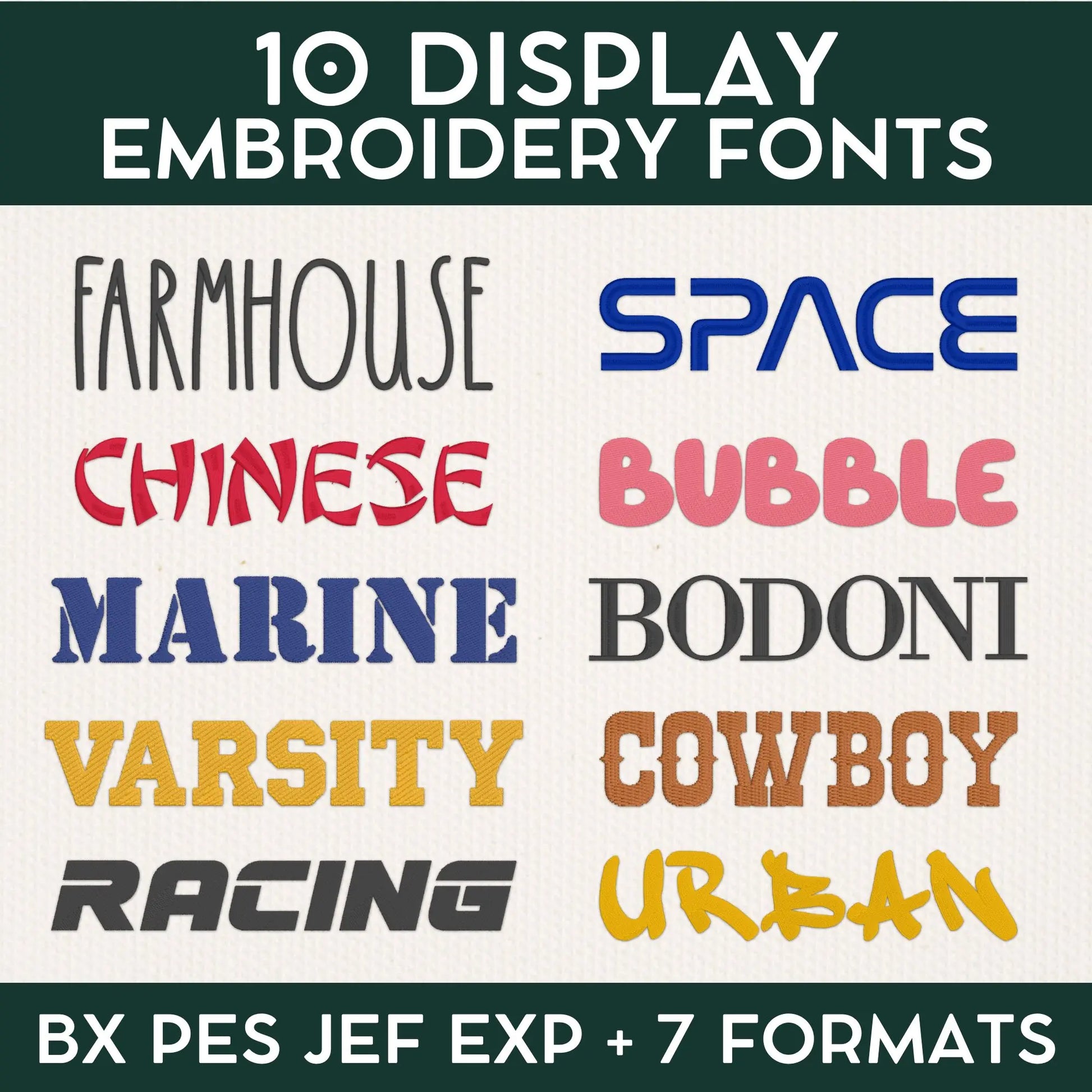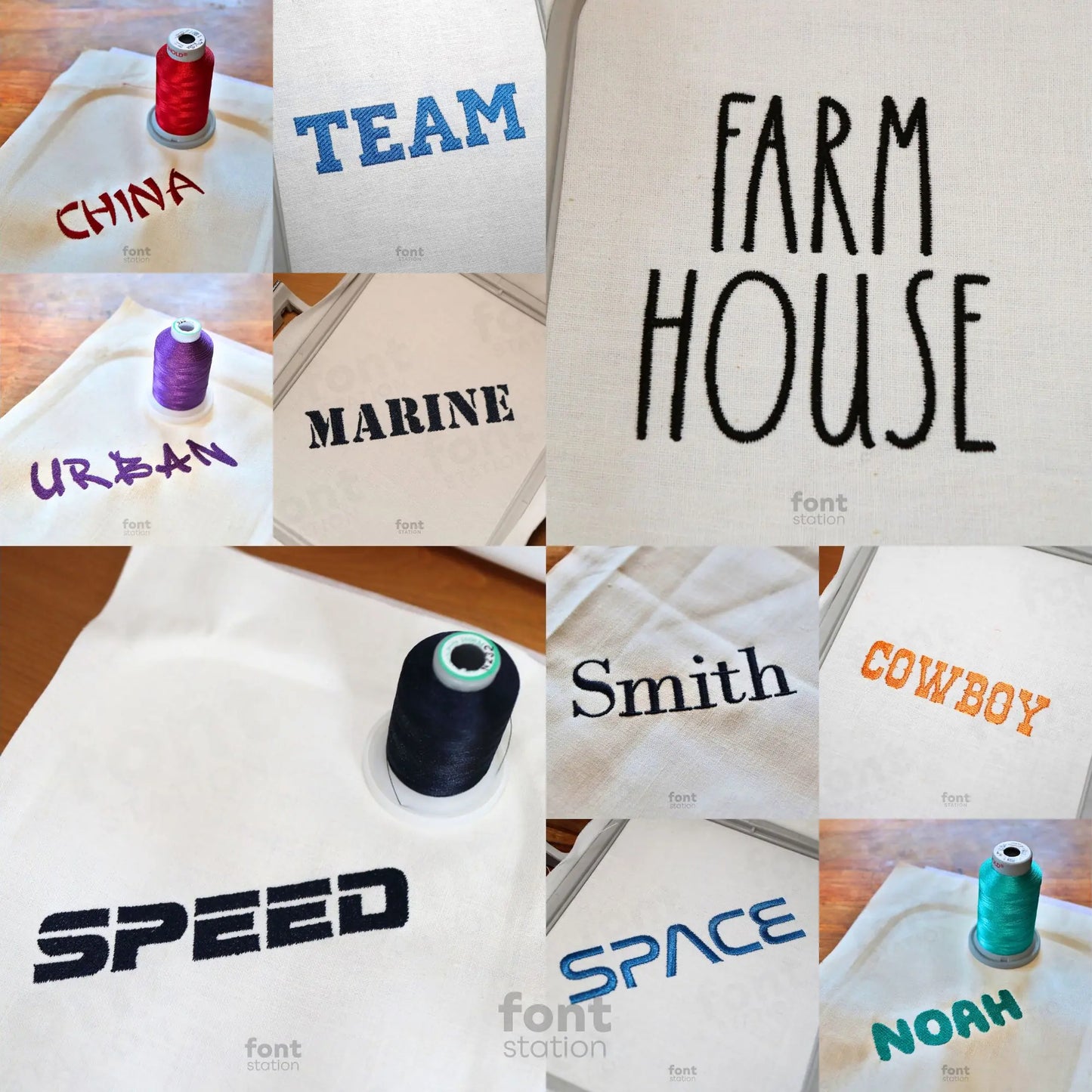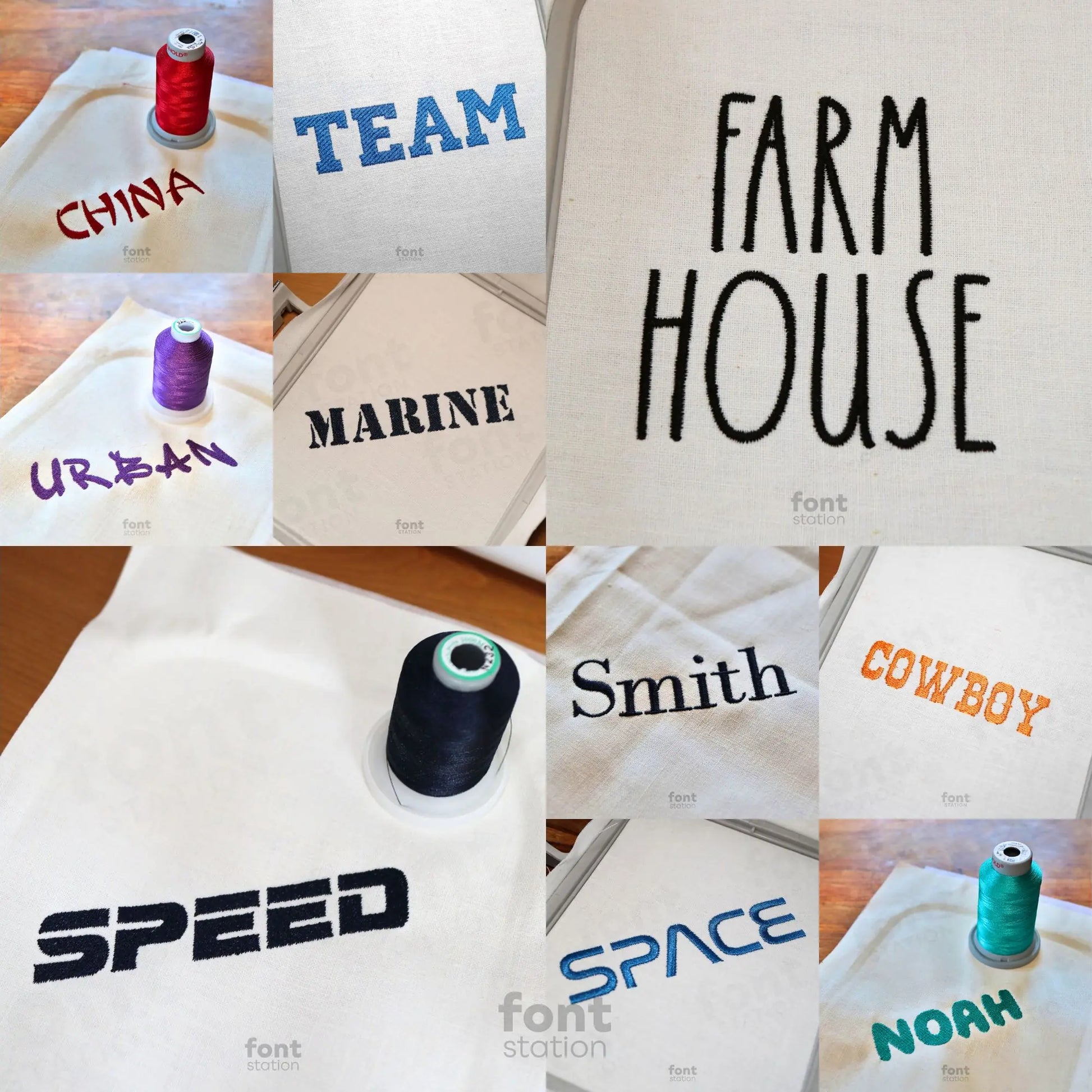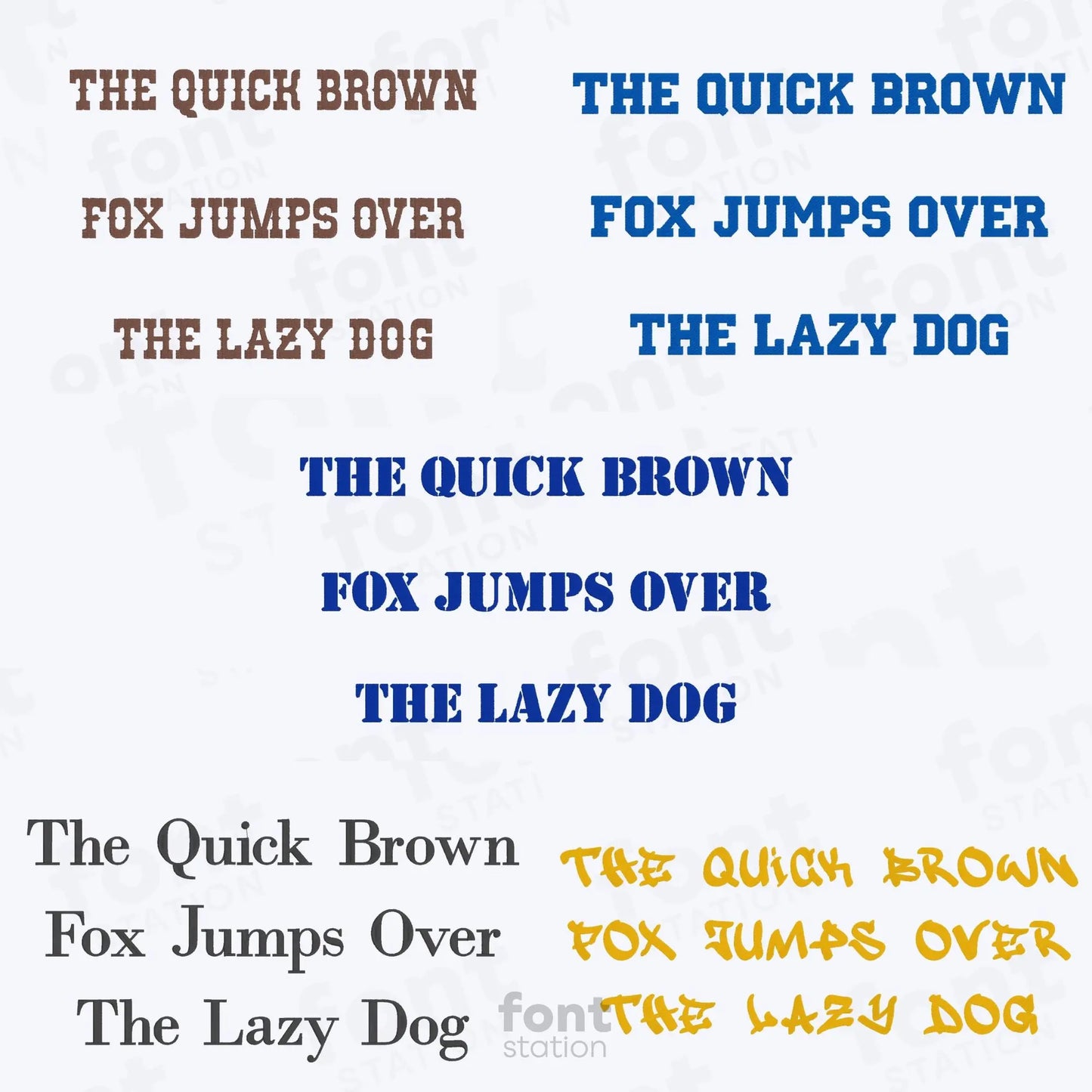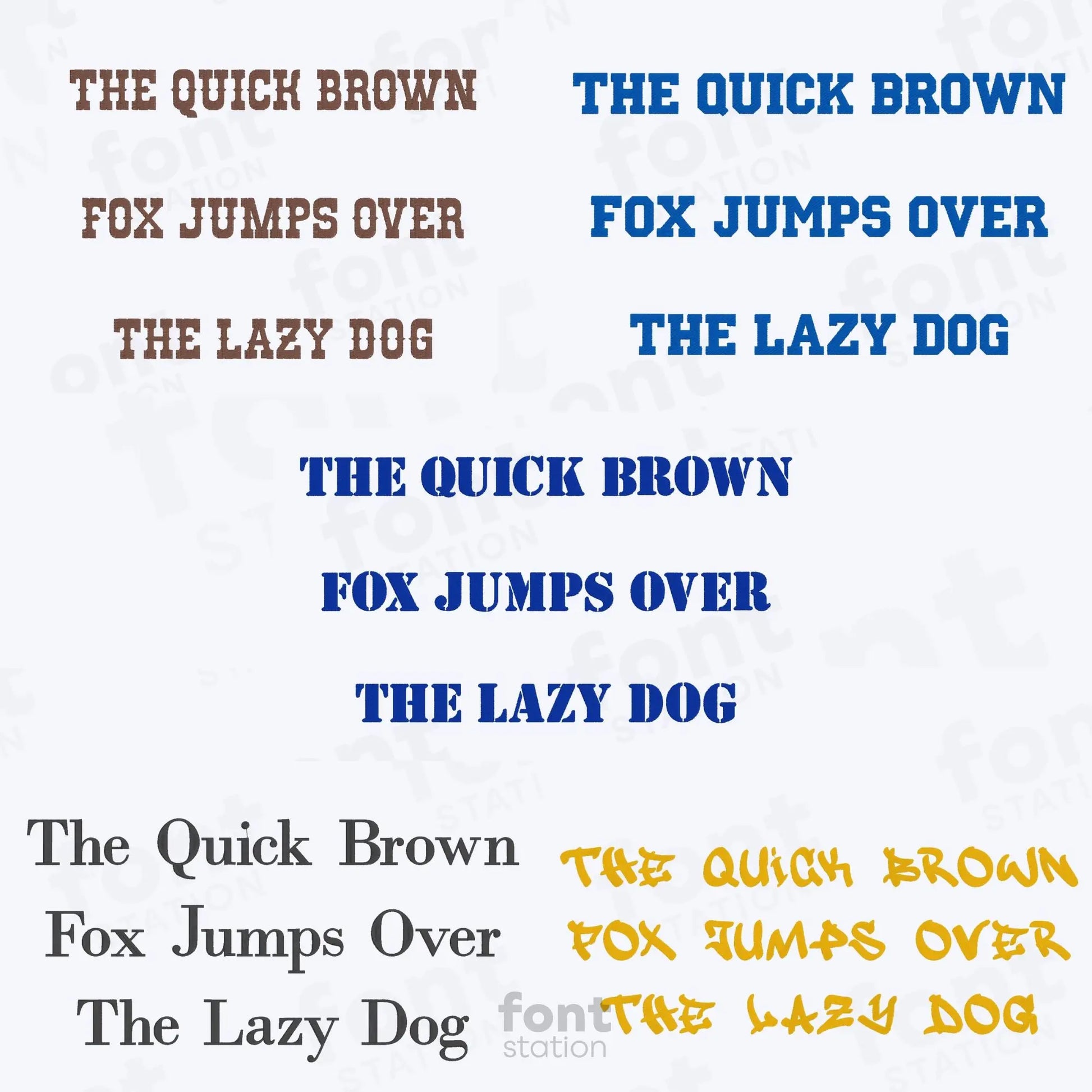
Display Embroidery Fonts Bundle
Introducing our Display Embroidery Fonts Bundle - a bold decorative alphabet collection designed to stitch standout letters on any embroidery machine. Perfect for unique designs and every creative project.
Display Embroidery Fonts Bundle - bold decorative embroidery alphabets for standout designs
Make your embroidery projects stand out with our Display Embroidery Fonts Bundle, a curated collection of 10 decorative embroidery fonts perfect for bold headlines, signage, custom gifts, and eye-catching monograms. Each machine embroidery font in this bundle features a distinctive alphabet of embroidery letters, professionally digitized for smooth stitching on any embroidery machine.
• Varsity: Satin – 0.5", 0.75", 1", 1.5", 2", 2.5", 3" | A-Z, 0-9, & , - . ! # ( ) ? /
• Cowboy: Satin – 0.75", 1", 1.5", 2" | A-Z, 0-9, & . ! ?
• Marine: Satin – 0.5", 0.75", 1", 1.5", 2", 2.5", 3", 4" | A-Z, 0-9, & - . ! # ?
• Farmhouse: Satin – 0.5", 1", 1.5", 2", 2.5", 3", 4", 5" | A-Z, 0-9
• Space: Satin – 0.5", 1", 1.5", 2", 2.5", 3" | A-Z, a-z, 0-9, & , - . ! # ( ) ? /
• Bodoni: Satin – 0.25", 0.5", 0.75", 1", 1.5", 2" | Fill – 2.5", 3", 4", 5" | A-Z, a-z, 0-9, & ' * @ : , - . ! # ( ) ? " ; /
• Urban: Satin – 0.5", 0.75" | Fill – 1", 2", 3", 4", 5" | A-Z
• Chinese: Satin – 0.5", 1", 1.5", 2", 2.5", 3" | A-Z, a-z, 0-9
• Bubble: Fill – 1", 1.5", 2", 3" | A-Z, 0-9, & ! ?
• Speed Racing: Fill – 0.5", 0.75", 1", 1.5", 2", 2.5", 3" | A-Z, a-z, 0-9, & ? ! . : ' "